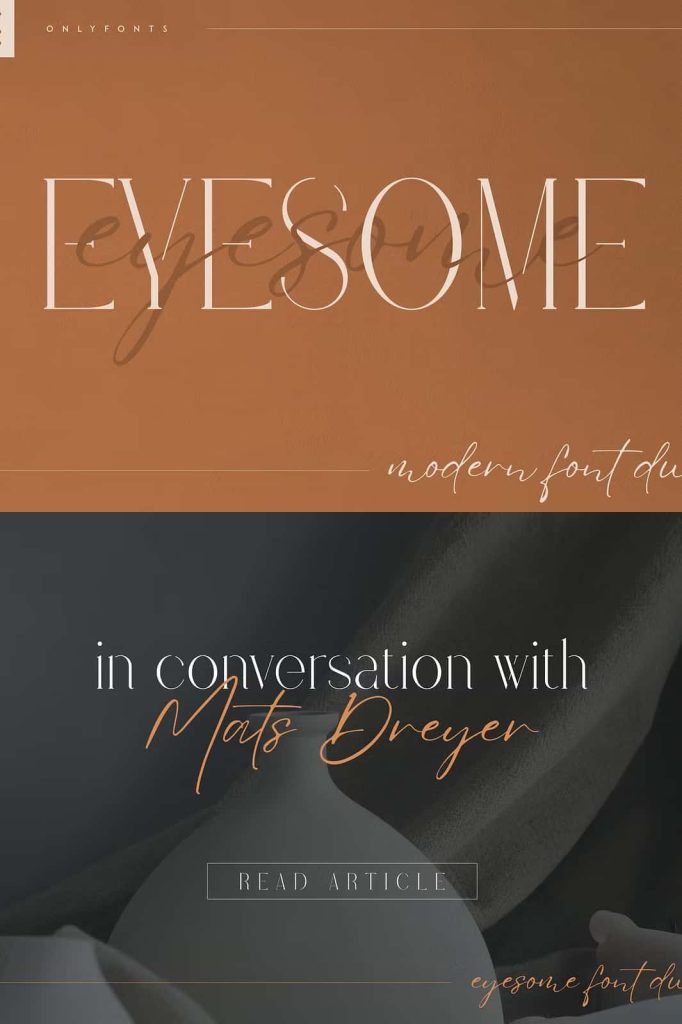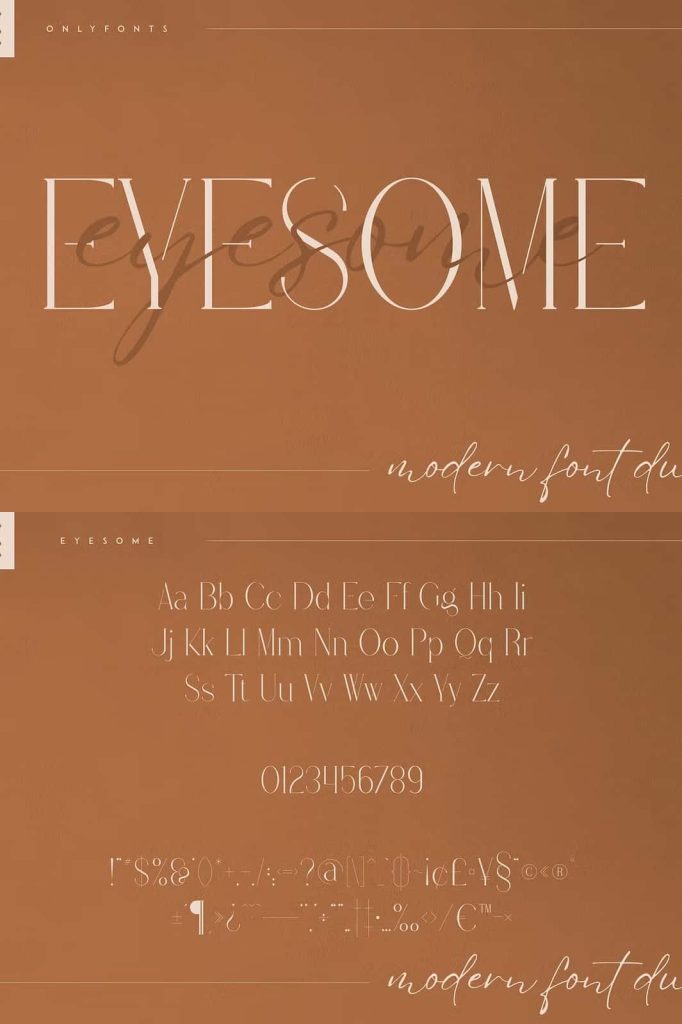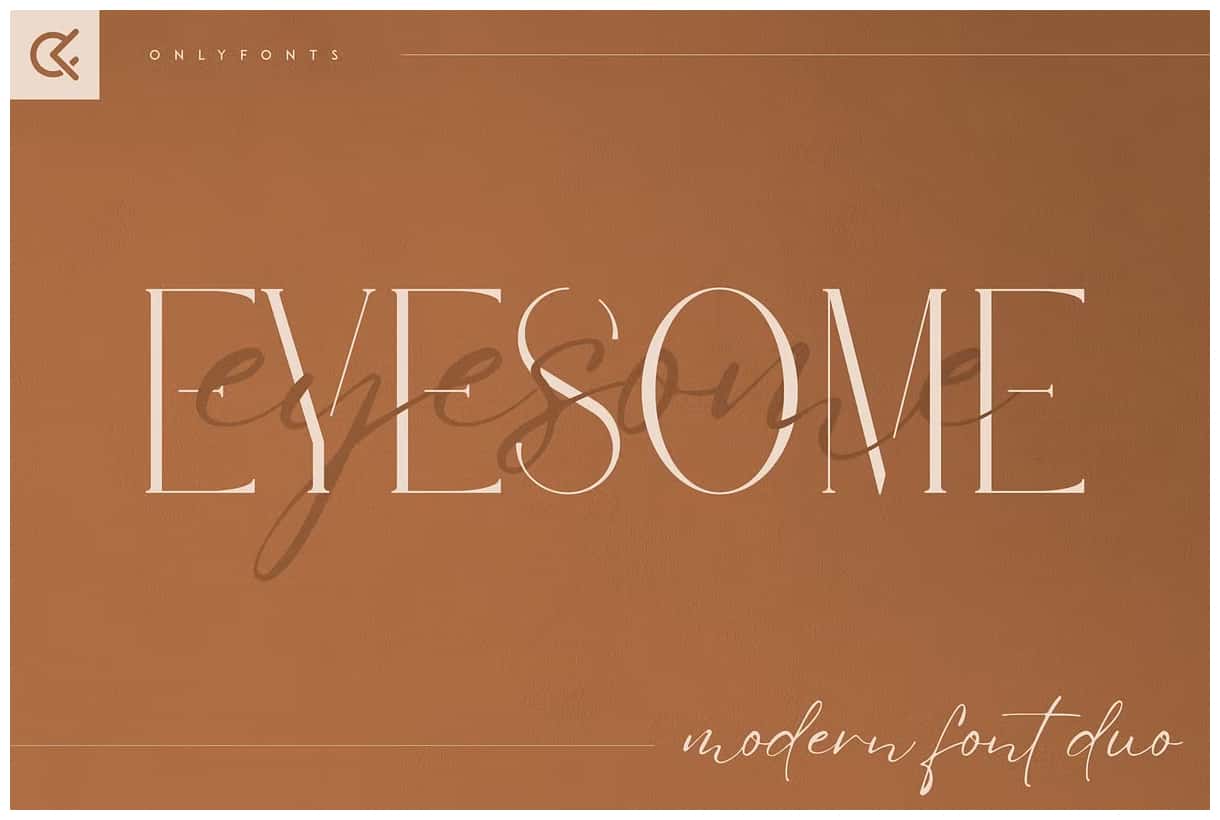
Eyesome: An Elegant and Organic Typeface with Multilingual Versatility
Eyesome is an elegant and organic typeface crafted to deliver clarity, beauty, and adaptability. Designed with smooth curves and balanced proportions, Eyesome brings a refined yet natural feel to modern typography. Its thoughtful construction allows the font to perform beautifully at both large display sizes and smaller text settings, making it a reliable choice for a wide range of creative projects.
This typeface blends visual elegance with practical usability. Rather than focusing on decorative excess, Eyesome emphasizes clean forms and organic rhythm. The result is a font that feels stylish and contemporary while remaining approachable and easy to read.
Organic Design with Elegant Character
The design of Eyesome centers on harmony and flow. Each letter is shaped with subtle organic influences that create a natural visual movement across words and lines. This organic quality helps text feel calm and refined, adding a sense of sophistication without appearing rigid or mechanical.
Soft Curves and Balanced Proportions
Eyesome features smooth curves and carefully measured proportions that support visual consistency. These details allow the font to maintain its elegance across different layouts and design contexts. Whether used in headlines or body text, Eyesome preserves its graceful character.
Timeless and Contemporary Appeal
While Eyesome feels modern, it avoids fleeting trends. Its timeless design ensures that projects remain visually relevant over time. This makes the typeface a strong choice for long-term branding and editorial use.
Multilingual Support for Global Design
Eyesome includes multilingual support, enabling designers to communicate across different languages without compromising visual consistency. This feature makes the typeface especially valuable for international branding, publications, and digital platforms.
Consistent Typography Across Languages
The multilingual character set is designed with the same care and balance as the core letterforms. This ensures that text maintains a cohesive appearance regardless of language, helping brands communicate clearly and professionally to a global audience.
Reliable Performance in Diverse Projects
With its extended language support, Eyesome adapts easily to projects that require flexibility and scalability. Designers can confidently use the font in multilingual layouts without needing to switch typefaces.
Highly Versatile Across Sizes and Mediums
Eyesome is designed to perform consistently across a wide range of sizes. Its clear shapes and balanced spacing allow it to remain legible and visually pleasing whether used for large display text or smaller informational content.
Strong Presence at Large Sizes
When used at large sizes, Eyesome delivers elegance and impact. It works beautifully for magazine headers, titles, and hero text where refined typography plays a central role in the design.
Clarity and Readability at Small Sizes
At smaller sizes, Eyesome maintains readability without losing its organic charm. This makes it suitable for longer text passages, captions, and supporting information in both print and digital formats.
Perfect Applications for Eyesome Typeface
Eyesome is a highly adaptable typeface that supports a broad range of creative applications. Its elegant yet organic design allows it to enhance visual communication across multiple industries and design disciplines.
Branding and Visual Identity
In branding projects, Eyesome communicates sophistication and trust. Its clean structure and organic warmth help brands appear professional while remaining approachable. This balance makes it ideal for logos, brand guidelines, and identity systems.
Home-Ware and Product Packaging
Eyesome works especially well in home-ware designs and product packaging. Its refined appearance adds value and style, helping products feel carefully designed and aesthetically appealing. The font enhances packaging without overwhelming the overall design.
Magazine Headers and Editorial Design
For magazine headers and editorial layouts, Eyesome provides clarity and visual elegance. Its strong presence at large sizes ensures that headlines stand out, while its readability supports a smooth reading experience.
Text Overlays on Images
Eyesome performs exceptionally well as a text overlay on background images. Its clean shapes and balanced contrast allow text to remain readable while complementing photography and visual content.
Why Choose Eyesome for Your Design Projects
Choosing Eyesome means choosing a typeface that balances elegance, organic form, and practical versatility. Its multilingual support, strong performance at multiple sizes, and refined aesthetic make it a dependable tool for modern design.
If you are looking for an elegant and organic typeface that adapts seamlessly to branding, packaging, editorial, and digital projects, Eyesome offers a polished and flexible solution. It empowers designers to create clear, stylish, and visually cohesive work across a wide range of applications.